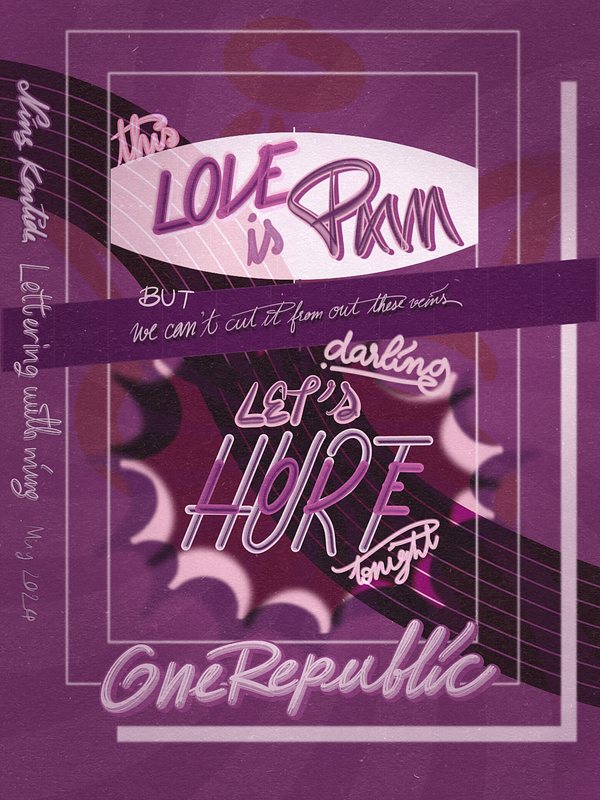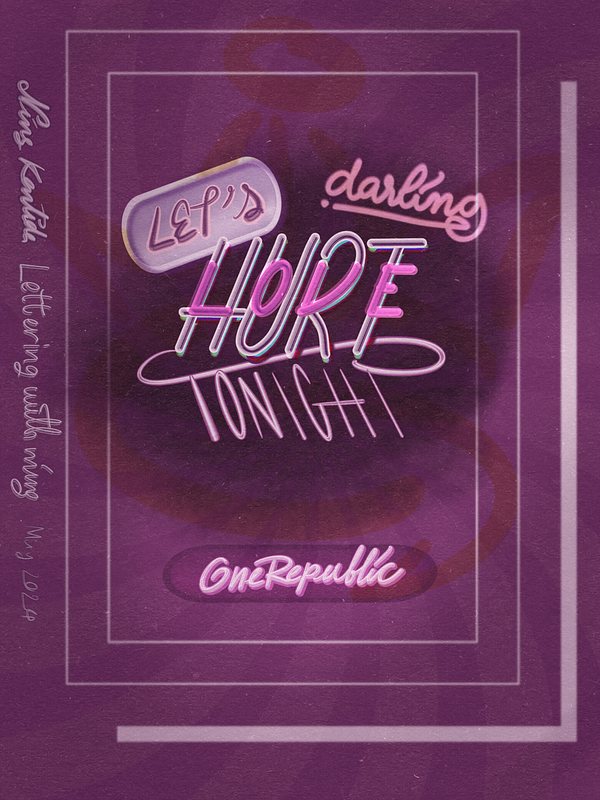
The Lyrics Lettering 00007-Let's Hurt Tonight by OneRepublic
When you look at the design from afar, you’d see the “Hurt” first, but once you look more closely, the “Love” will be the center of attention with a much more prominent color. This is to show that love is always the point in relationships, despite all the challenges that come with it.
The Inspiration
There are a lot of great lyrics from OneRepublic, especially from their early albums. However, I chose to do lettering for OneRepublic's "Let's Hurt Tonight" because I was drawn to the idea that love and pain go hand in hand. If you want to truly love someone, you have to be ready to get yourself hurt in the relationship. It's a reminder that relationships aren't always easy, but we should face the challenges together, not run away from them.
The Process
My process involved using the concept of love and hurt both come in a full package. At first, I forgot that it should be “hurt” not “hate” but quickly corrected it 😂
I really love how it looked like there’s always love inside the hurt. So I built the design around this concept.
As I digitized the design, I got carried away with experimenting
with brushes and background textures. It ended up looking cluttered
and I forgot about using colors to create a visual hierarchy.
So, I decided to simplify and focus on the essence of the design. The
end result is something I'm really proud of—it's the first lyrics
lettering I consider a finished work.
Side note